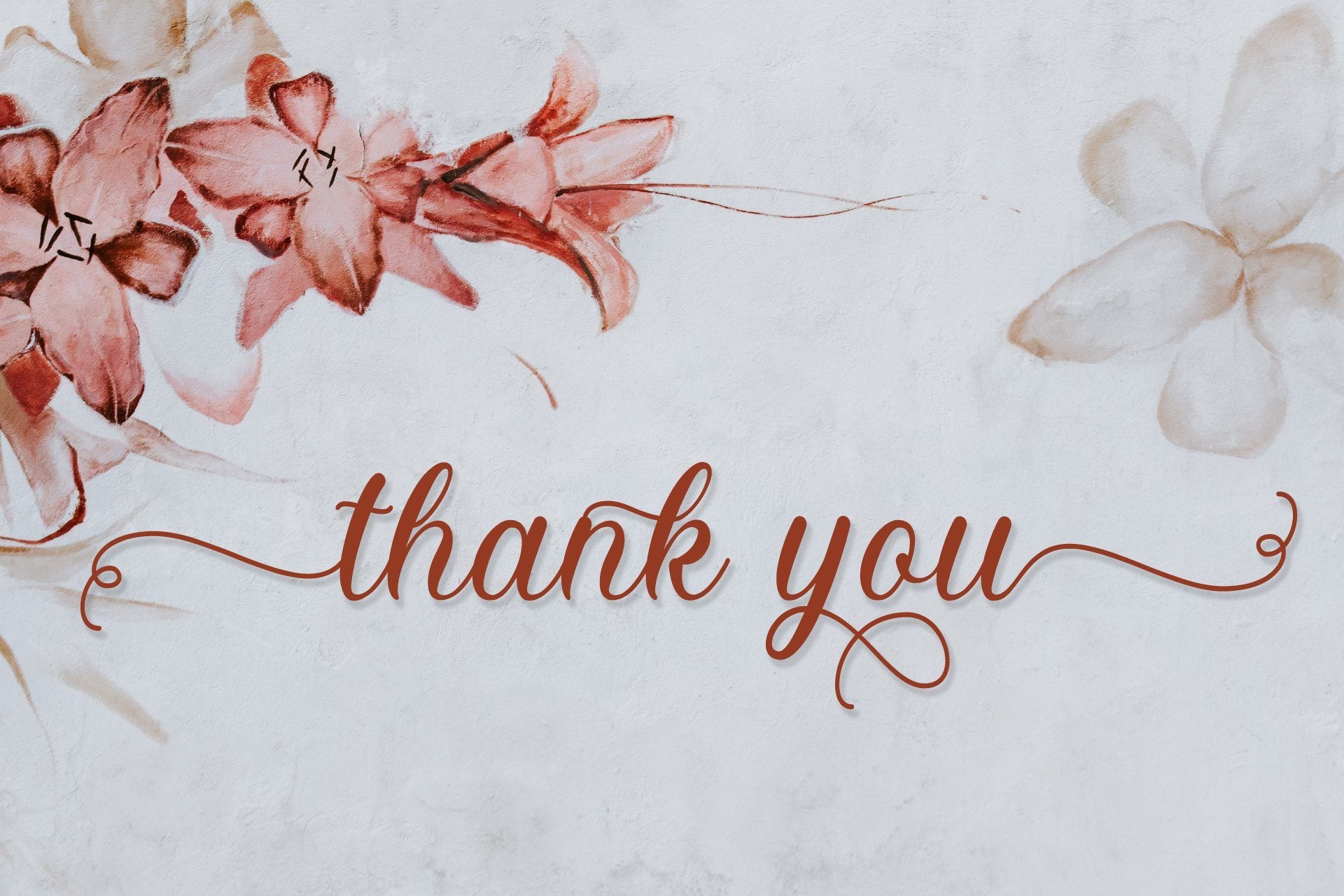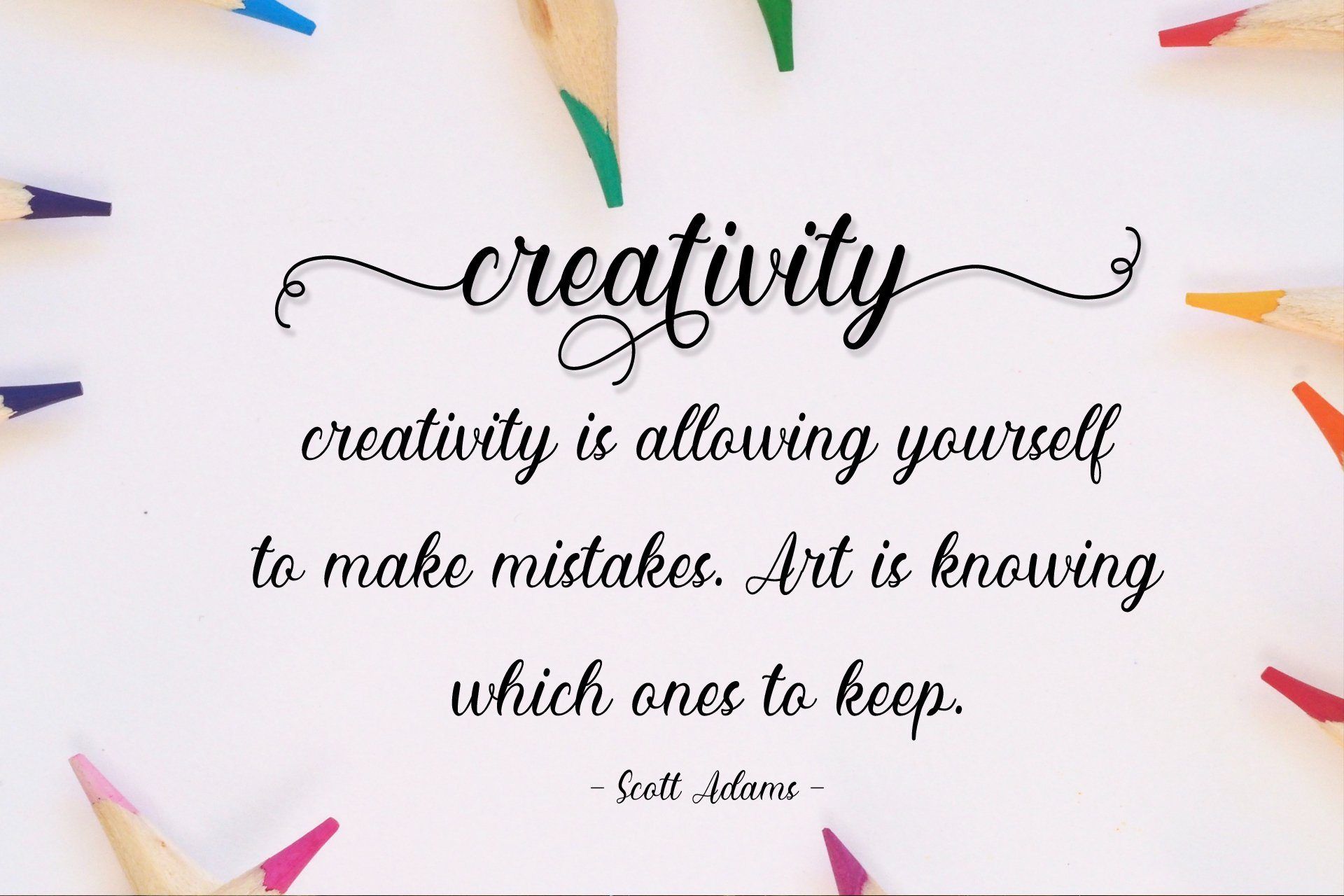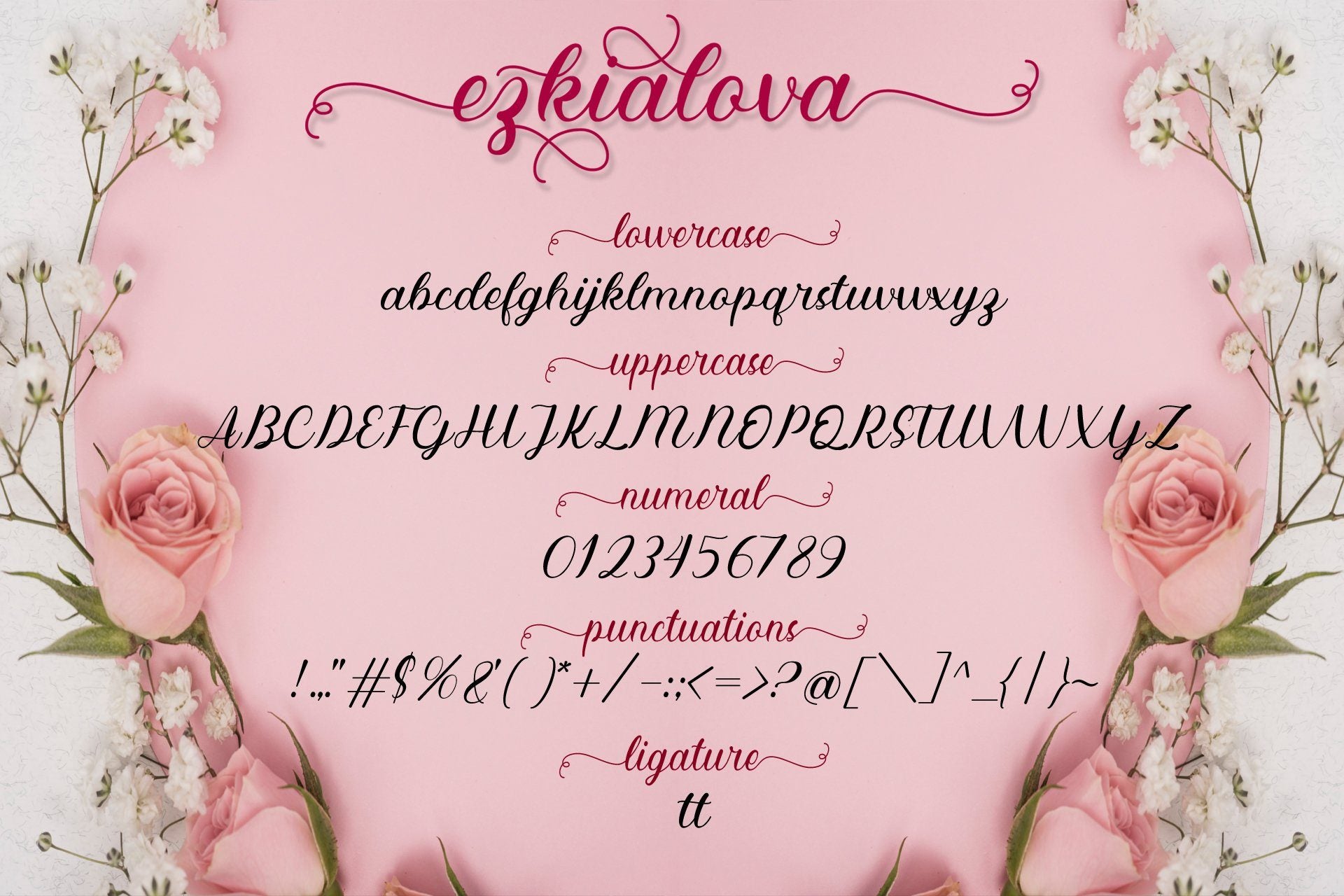
About Ezkialova
Ezkialova is a modern calligraphy font. Ezkialova is very beautiful, it has various kinds of alternate characters, what makes it look good is swash at the beginning and the end of words that will surely enhance every design projects. These alternate characters can be accessed easily, how to access these alternates has been described at the image preview. This font is very great for many design projects such as product brand, quotes, clothes, business card, wedding invitation, signature, logos, lettering.